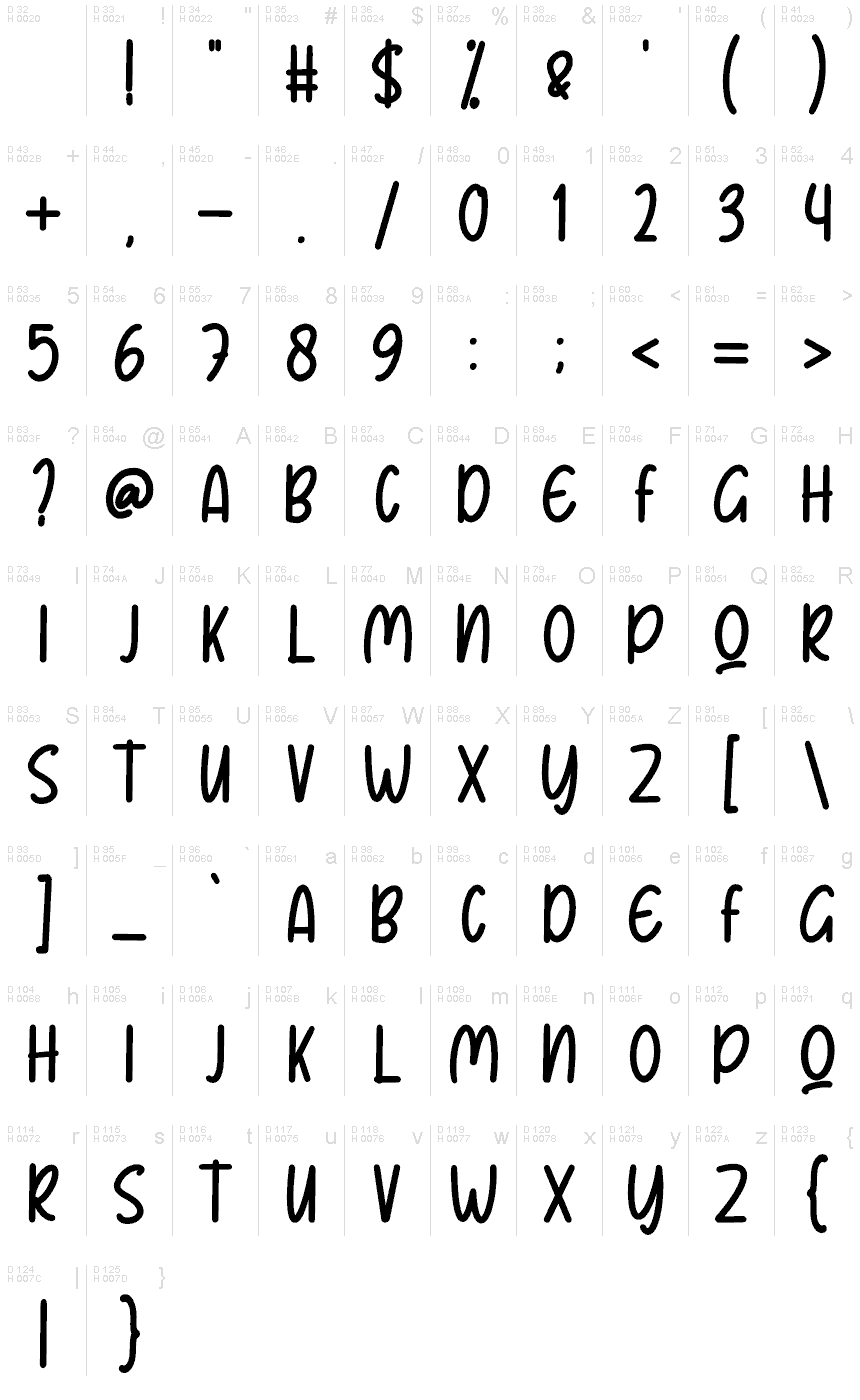
Bancors
Bancors font by Skiiller Studio is a condensed display typeface with a comic style for designs with casual and friendly vibes. It has a lively and hand-drawn appearance that makes the whole design present itself in an artistic manner. Use it to decorate posters, titles, banners, packaging boxes, invitations, and other contemporary applications in branding and marketing.